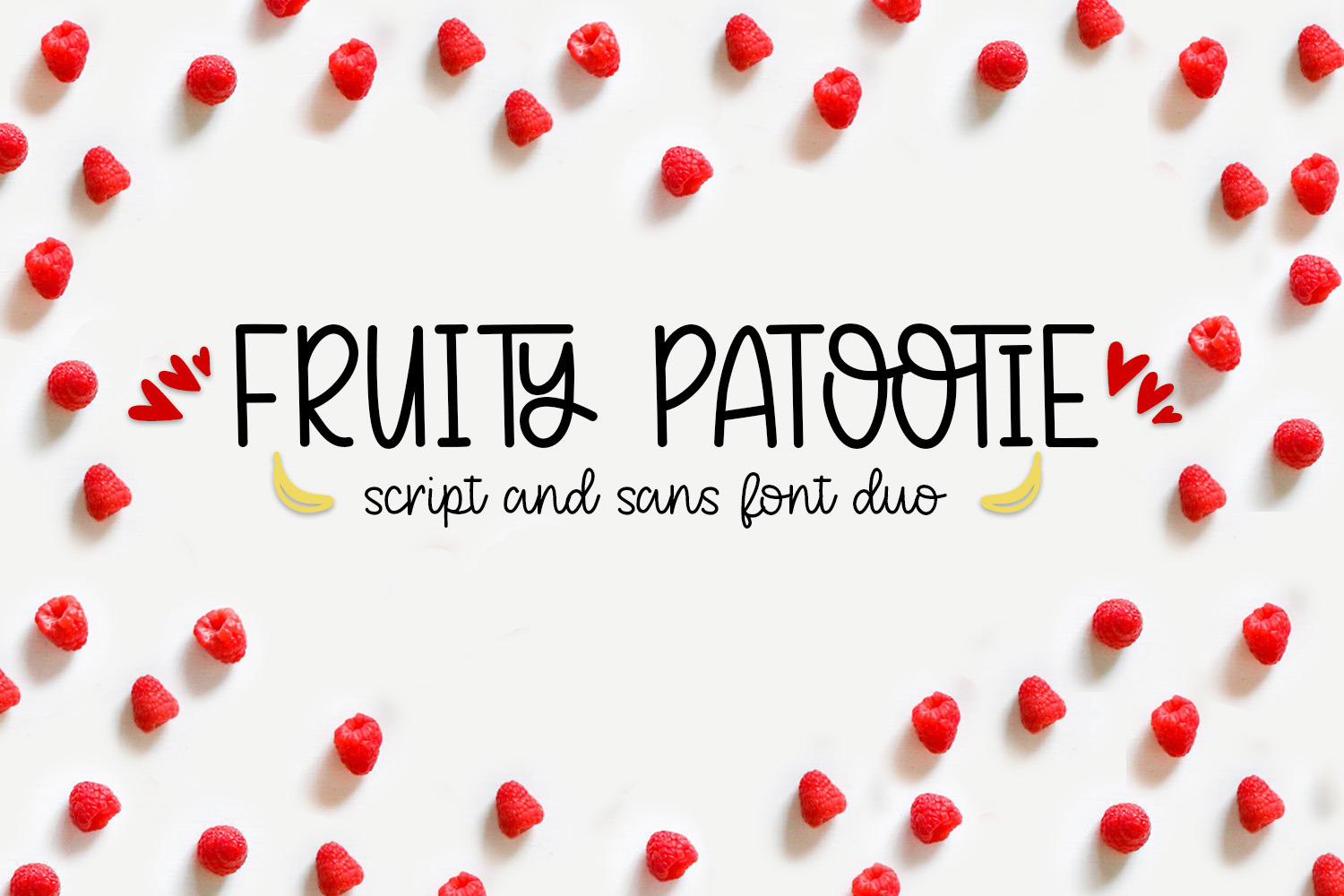
Fruity Patootie Font Duo
Fruity Patootie is a script and sans-serif font duo that pair beautifully together, with similarities and differences between the pair complimenting one another. This duo is perfect to create greeting cards, invitations, SVGs, for crafting and so much more.
- A dingbats font file is also included with doodles to compliment the Fruity Patootie font duo.
- The sans-serif font includes a handful of ligatures to add a bit of fun to your designs.